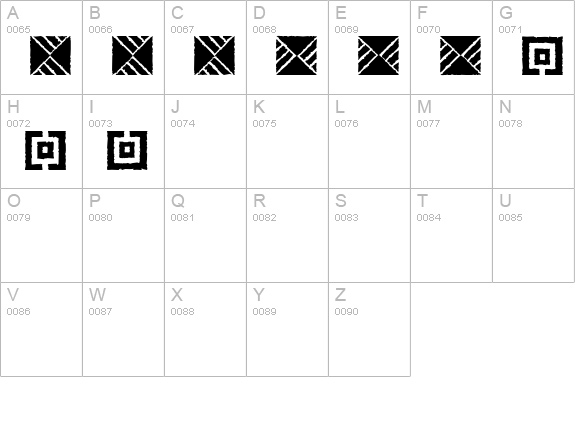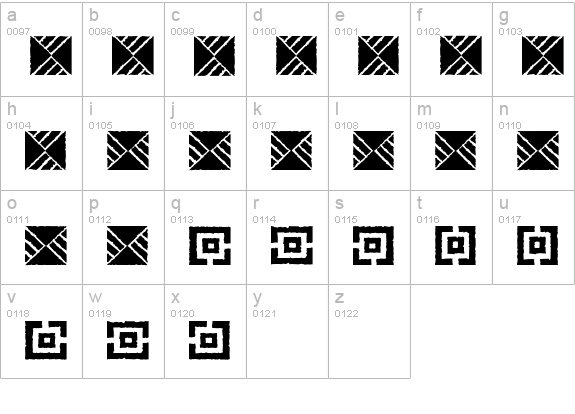
Stoned-BorderTwo is a unique and eye-catching font that combines elements of stonework and border designs to create a truly distinctive look. This font is perfect for adding a touch of rustic charm to your designs, whether you're working on invitations, labels, posters, or any other project that could benefit from a touch of artistic flair. The intricate details of Stoned-BorderTwo make it stand out from other fonts, giving your text a handcrafted and organic feel. The uneven edges and rough texture of the letters add character and depth, making your words truly pop off the page. Best of all, Stoned-BorderTwo is completely free to download at FontsMarket.com, so you can start using this font in your projects right away without any cost. Don't miss out on the opportunity to add a touch of creativity and originality to your designs with Stoned-BorderTwo font.